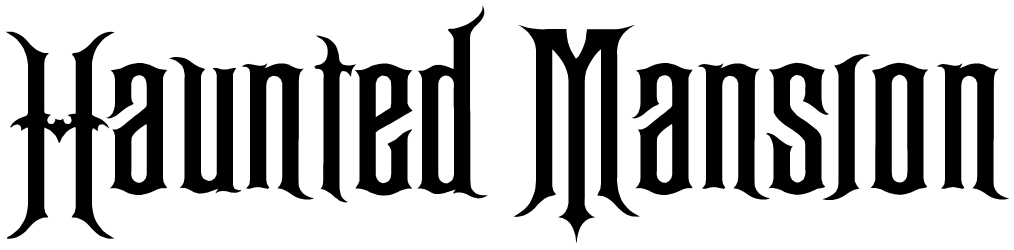
The Haunted Mansion Font
FamilyThe Haunted Mansion is a 2003 dark comedy film based on the Disney theme park ride of the same name. It stars Eddie Murphy as a real estate agent who visits the haunted mansion with his family, encountering ghostly inhabitants and learning about the estate's dark past.
''The Haunted Mansion logo font was custom made but looks very similar to Gracey's Curse. This font features uppercase/lowercase letters, numbers, and punctuation marks including accented letters. The font is free for personal use.